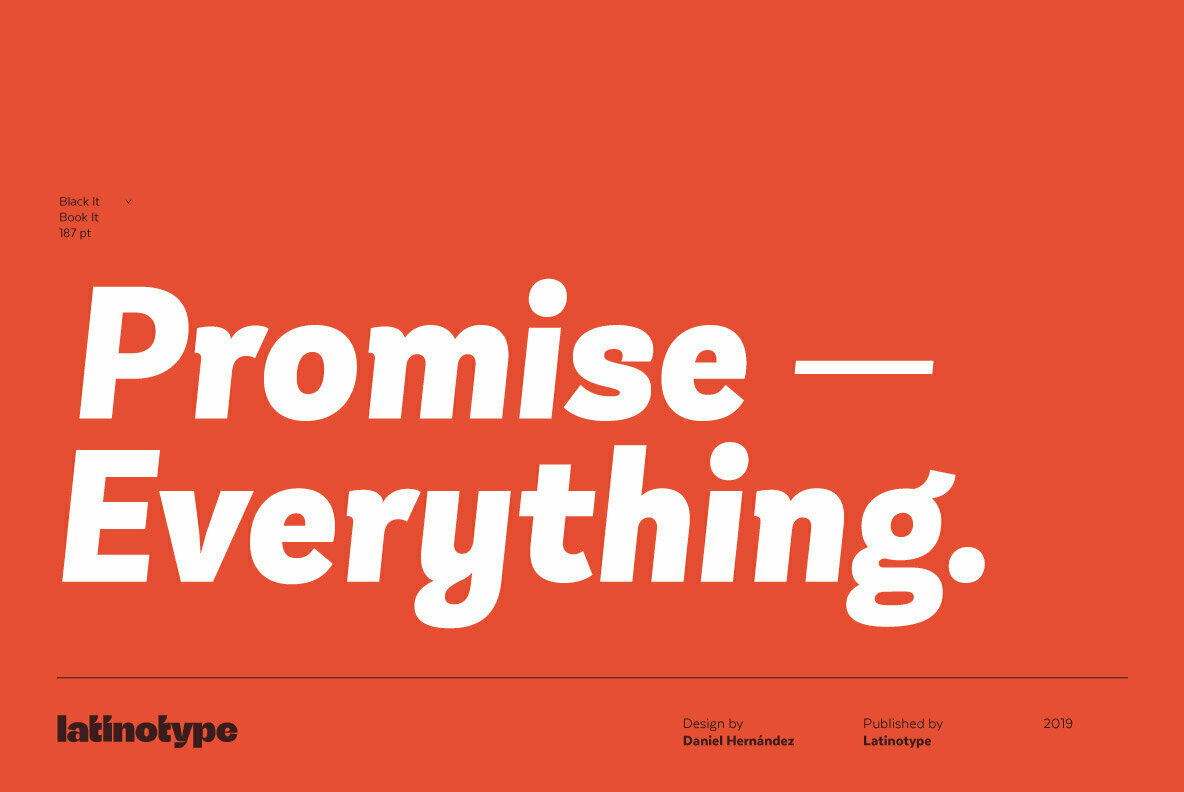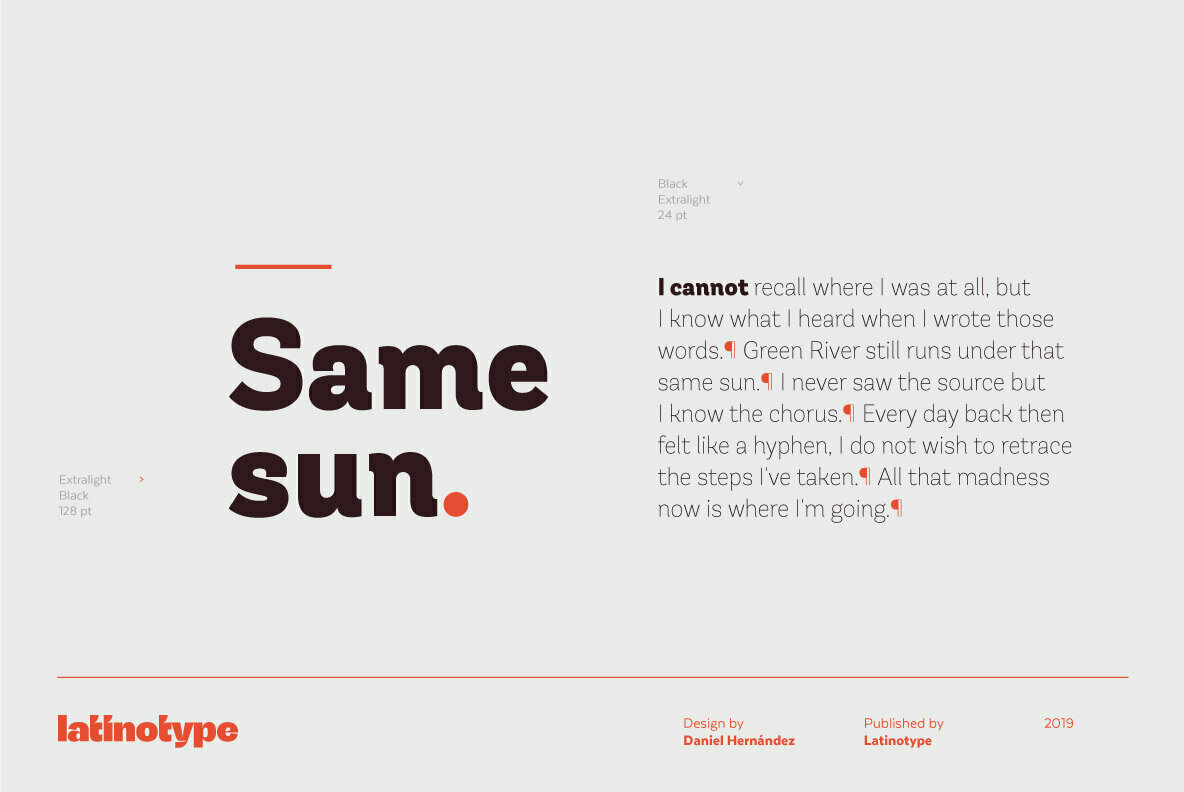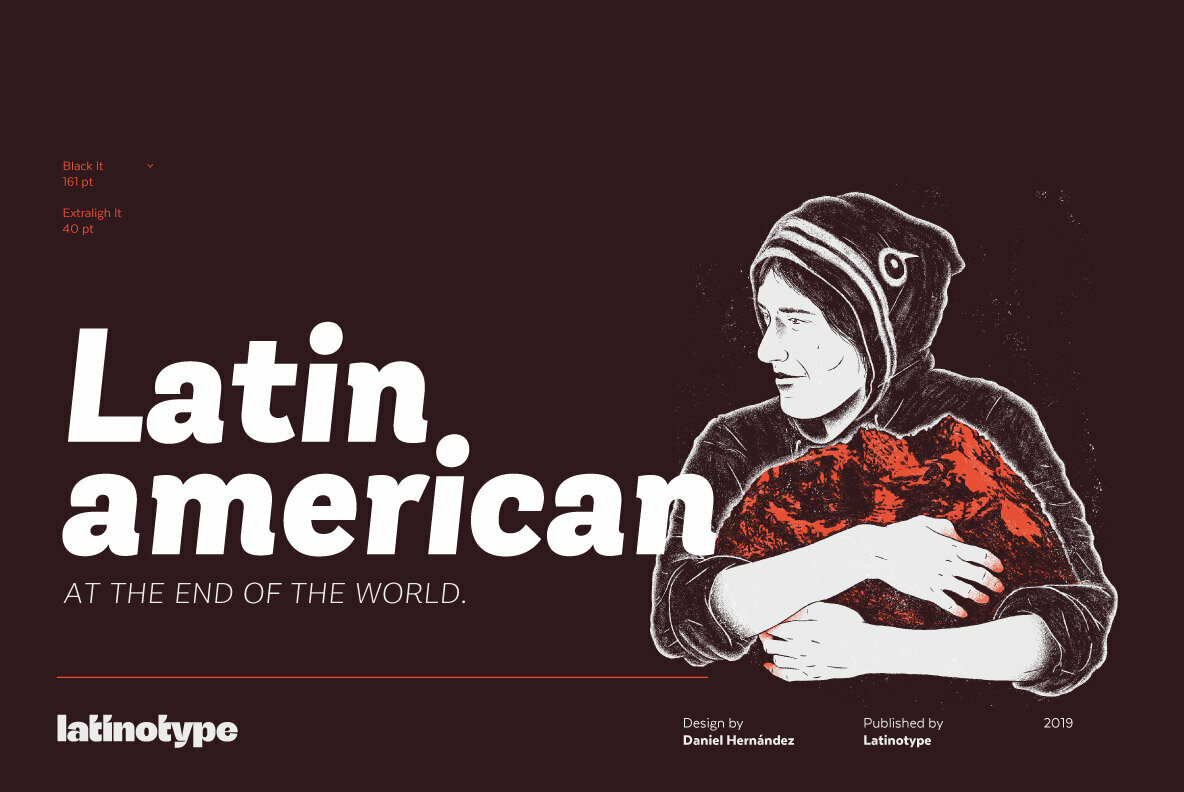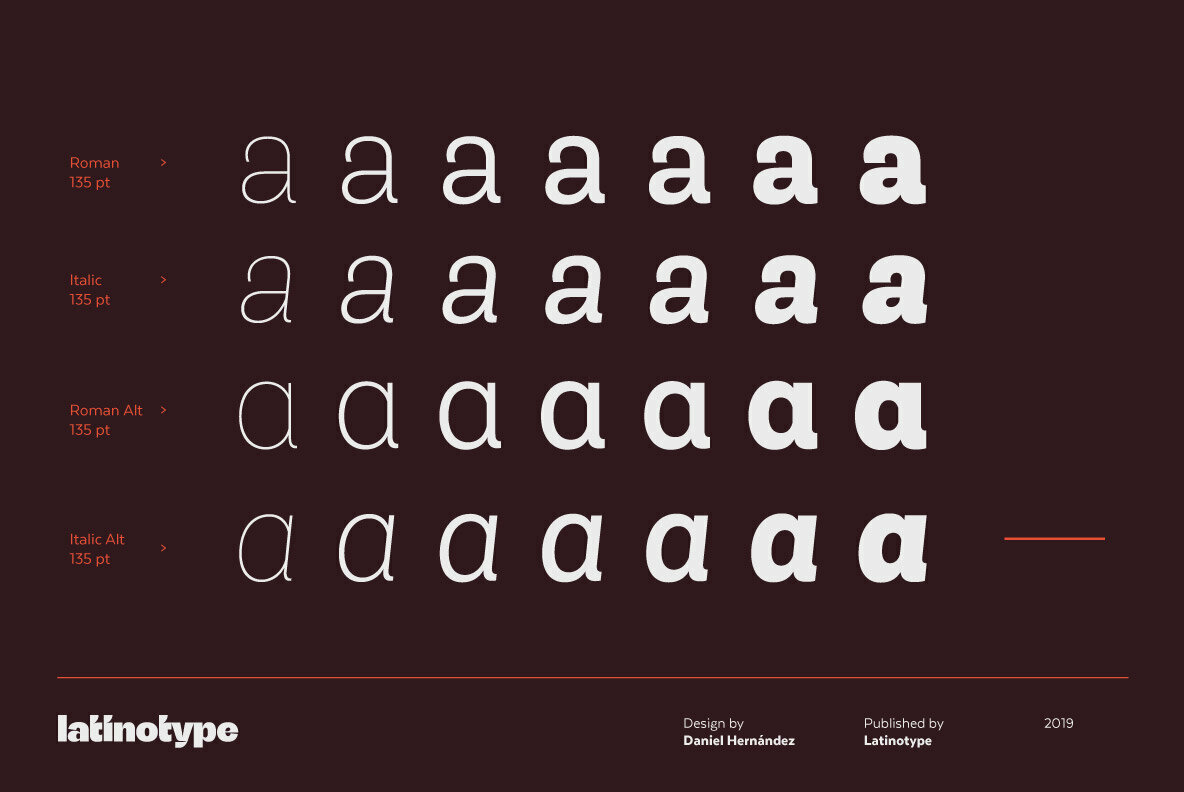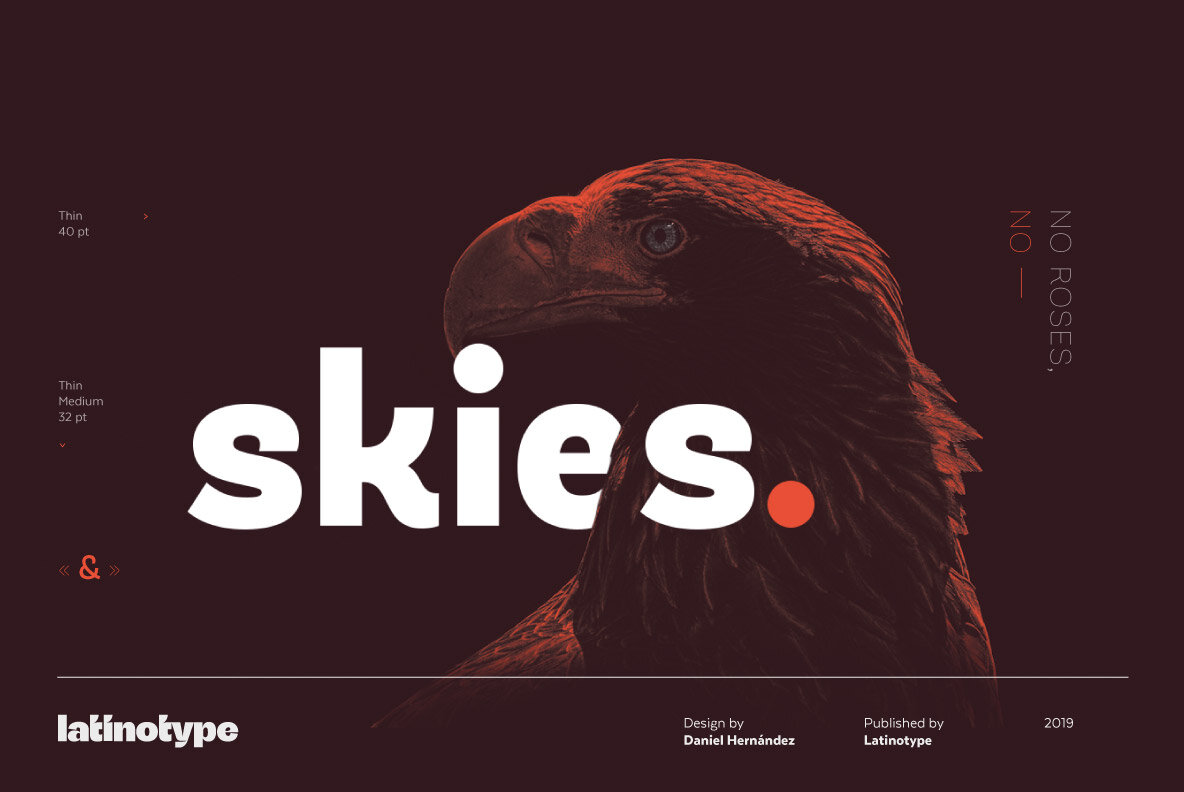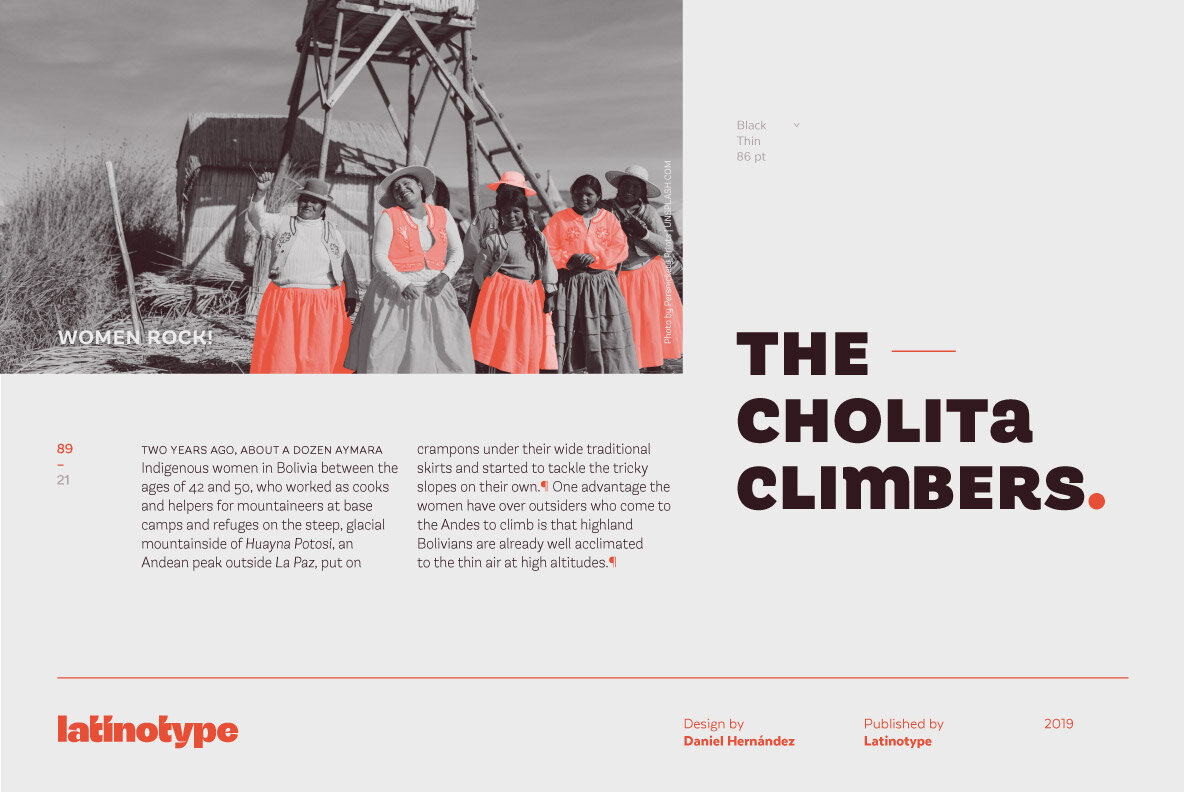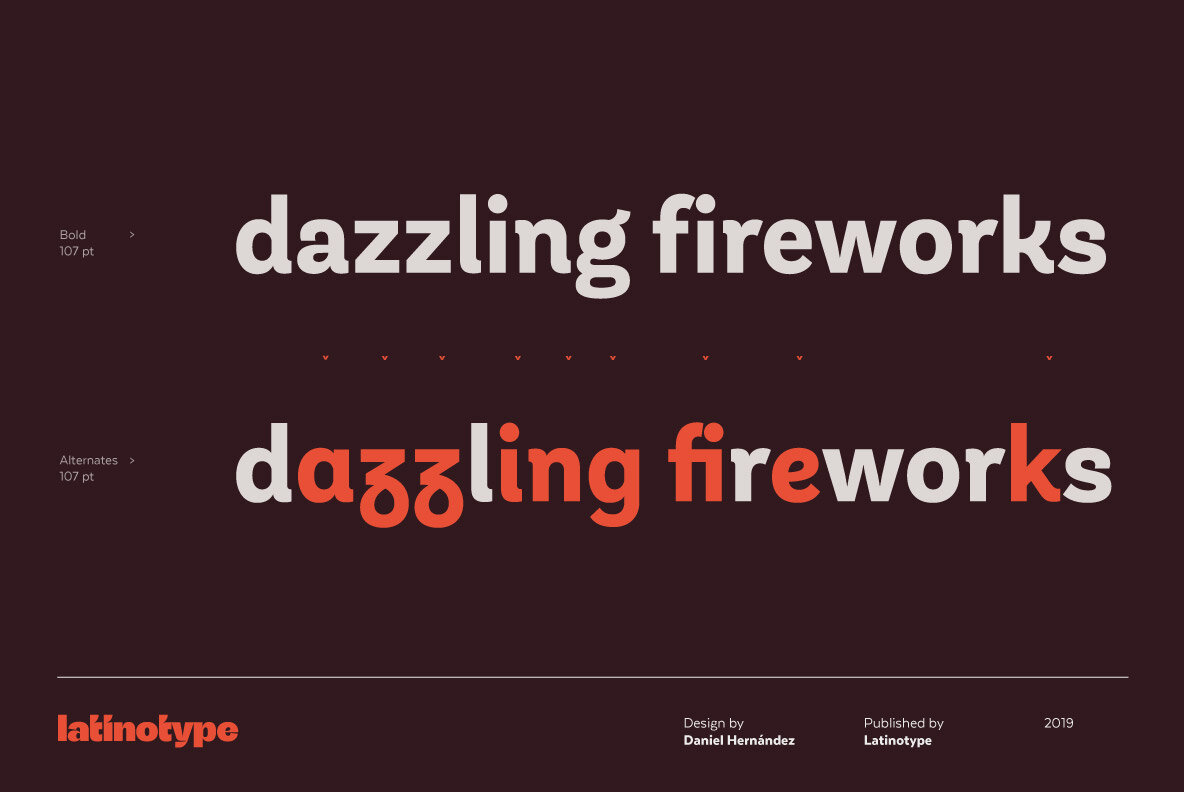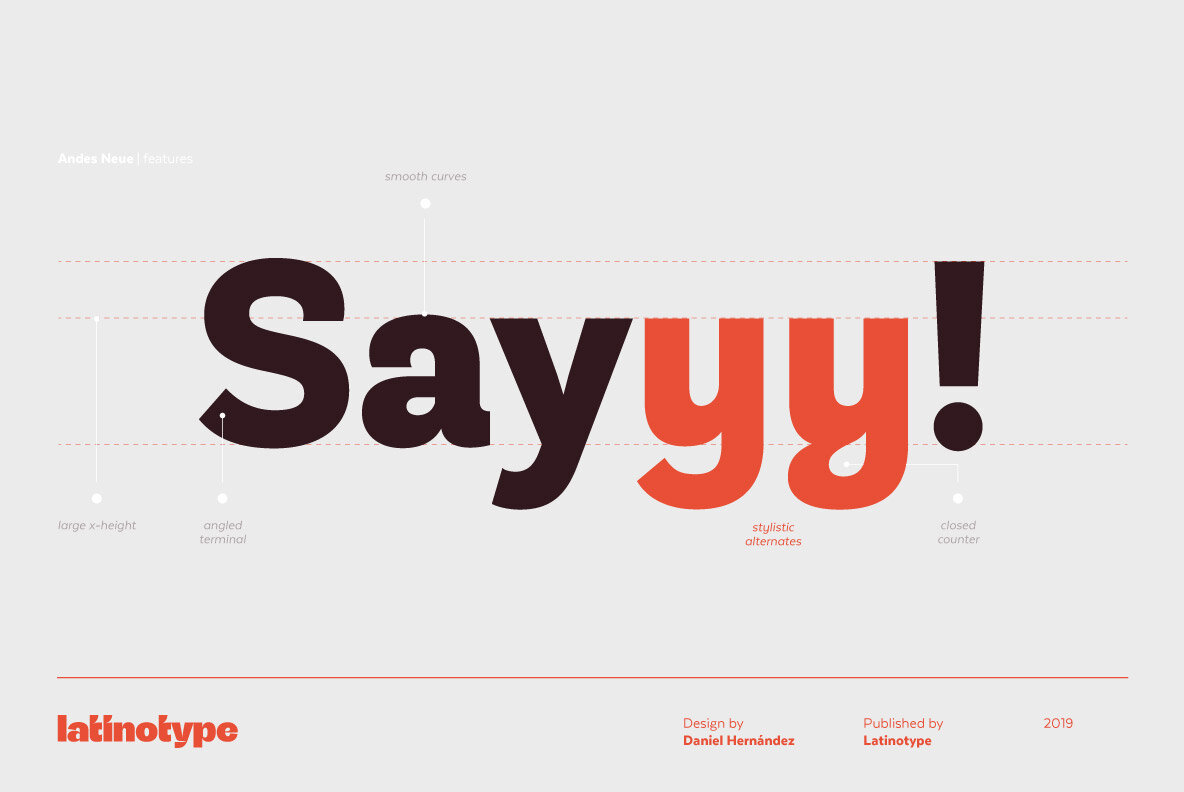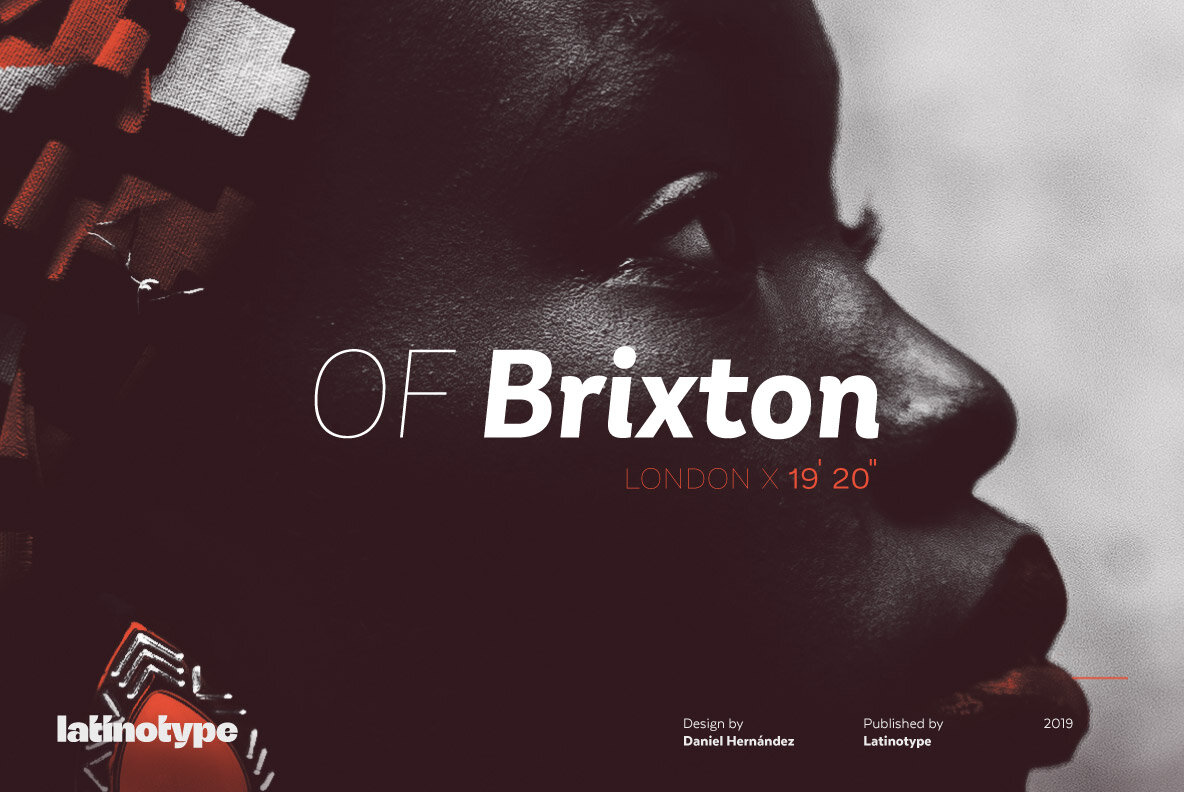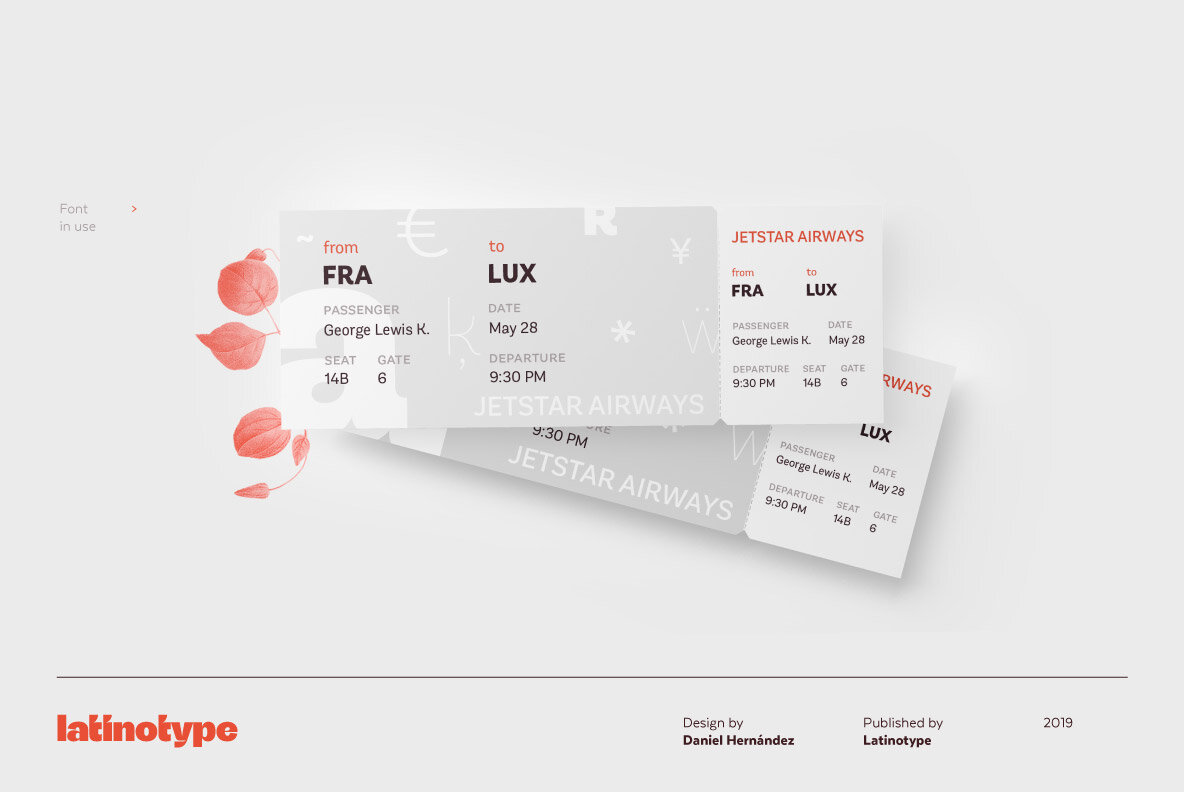
Andes Neue Font
Unlike its predecessor, Andes Neue contains a larger character set of 759 glyphs which support 219 Latin-based languages from 212 countries.
The font comes in 4 variants that provide a wide stylistic range. Andes Neue is the most similar to the original Andes design. The Alt1 character set bears some similarity to the old Andes's (yet cleaner); Alt2 uses the alternates in the font as default glyphs; and Alt3 is a mixture of the other three variants that offers a balanced set of characters.
Andes Neue also includes new accents and glyphs for a wider language support, and a set of small caps (in each variant). All of these features give the font a strong personality that helps make text look more appealing. Andes Neue varied weights work well with both short and mid-length text sections, providing a wide range of choices for any design project.